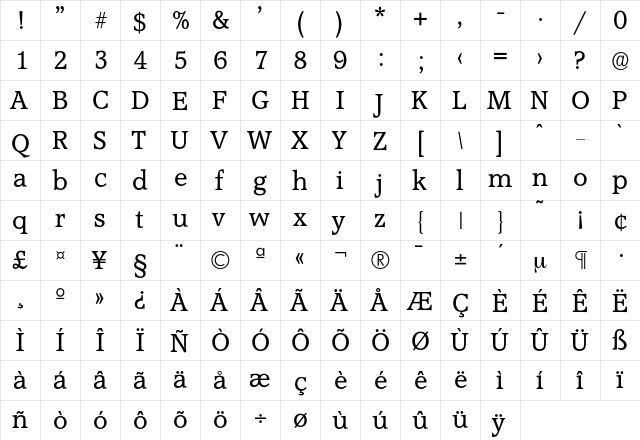
Accolade-Light Regular
Design Context for Accolade-Light Typeface
Accolade-Light offers clean, dependable letterforms without strong stylistic allegiance, making it a practical choice for designers who need flexibility. Its slender proportions lend an understated elegance to any composition.